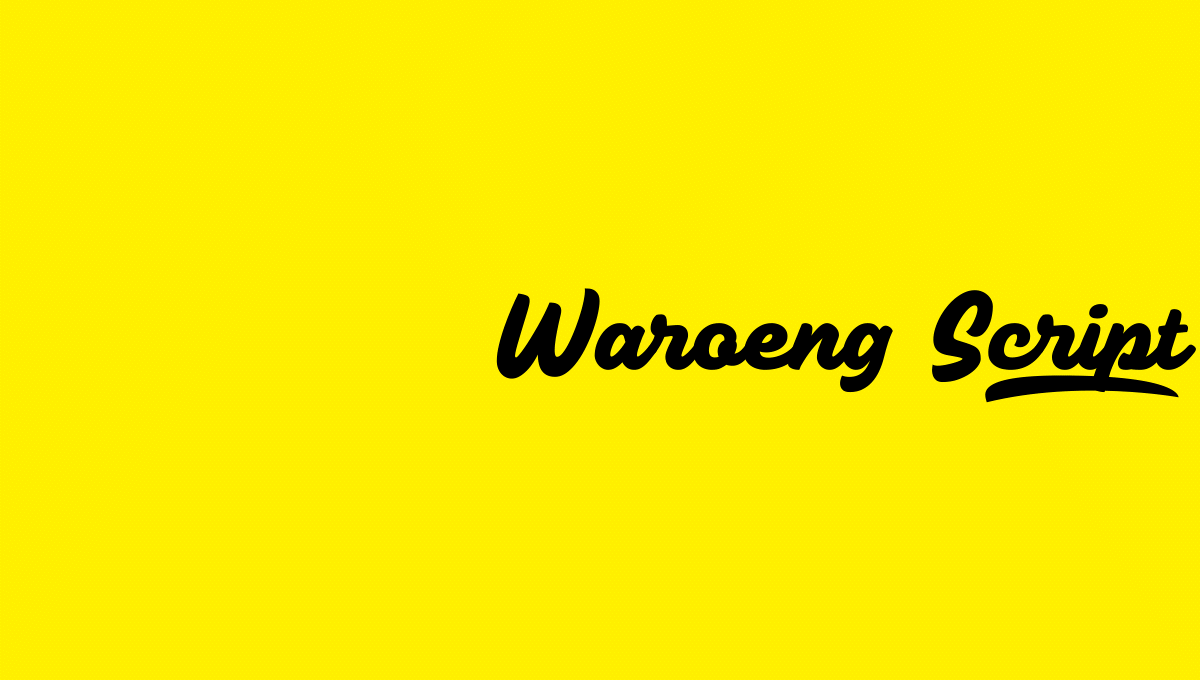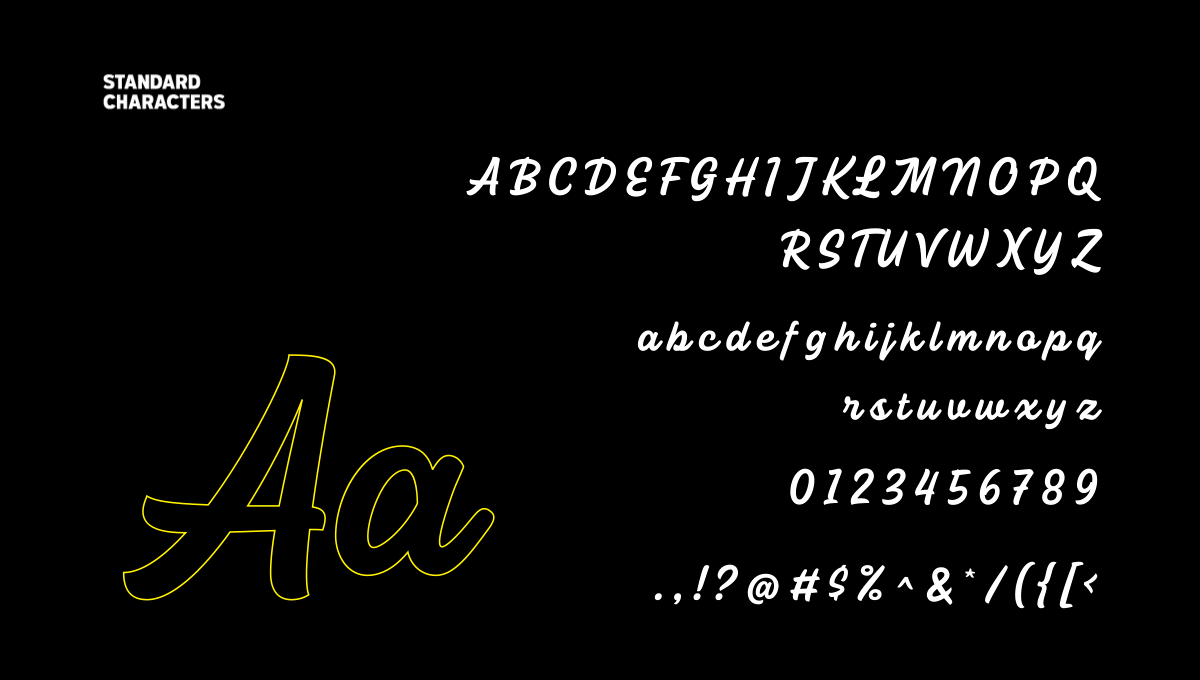
Building a strong restaurant identity goes beyond choosing the right logo or color palette. For food businesses serving crispy steak, beef hamburg, milkshakes, and other comfort-food favorites, typography plays a vital role in shaping customer perception from the very first glance.
Waroeng Typefaces is a custom font duo specifically designed for modern restaurant branding that aims to feel approachable, appetizing, and professional. By combining the clarity of a contemporary sans serif with the warmth of an expressive handwritten style, this type family provides a flexible typography system for a wide range of visual applications, from menus and packaging to signage and digital promotions.
Waroeng Typefaces was developed as a consistent visual identity solution for food and beverage businesses. Rather than relying on generic fonts commonly used across industries, this typeface helps create a more distinctive and memorable brand personality.
The family consists of two complementary styles:
Together, they create a balanced visual hierarchy that combines functionality with emotional appeal, making them suitable for various brand communication materials.
Waroeng Sans serves as the backbone of the entire typography system. Designed with balanced proportions and a solid structure, it delivers excellent readability across different sizes and media.
Whether used for menu listings, pricing information, promotional materials, or operational communications, Waroeng Sans ensures every message is delivered clearly and professionally.
Menu items such as Crispy Steak, Beef Hamburg, and various food and beverage categories remain highly visible, even in environments where readability can be challenging.
To provide maximum flexibility during the design process, Waroeng Sans includes nine font weights along with Variable Font support.
Variable Font technology allows designers to fine-tune font weight with precision according to specific design needs.
Ideal for:
This approach helps create cleaner visual layouts while improving design workflow efficiency.
Waroeng Sans is designed to support a wide range of professional business communication needs.
Its comprehensive character set ensures optimal performance across both print and digital applications.
As the perfect companion to Waroeng Sans, Waroeng Script introduces a warmer and more approachable handwritten style.
Its naturally flowing letterforms help create a closer connection with customers while adding an emotional layer that strengthens brand identity.
Its expressive personality helps make visual communication feel more engaging and memorable.
Waroeng Script includes several style options, allowing greater creative exploration.
As an added bonus, Waroeng Script comes with a Stamp Texture Version that delivers an authentic handcrafted print effect.
Perfect for:
This texture adds a strong handmade character without sacrificing readability.
Although Waroeng Script embraces a casual and organic handwritten style, it is built with high technical standards to ensure reliable performance.
Every character is carefully crafted to create a harmonious and consistent writing flow across different design uses.
Typography is more than a communication tool it is a visual element capable of stimulating appetite, strengthening brand personality, and creating memorable customer experiences.
Waroeng Typefaces is more than just a collection of fonts. It is a complete visual identity system designed to help food and beverage businesses appear more professional, appealing, and memorable.
By combining the strength and functionality of Waroeng Sans with the warmth and expressiveness of Waroeng Script, this typeface system delivers the perfect balance between readability and visual character.
Whether applied to restaurant menus, product packaging, signage, social media content, or promotional materials, Waroeng Typefaces helps brands create a more consistent, appetizing, and relevant visual experience for today’s food and beverage industry.